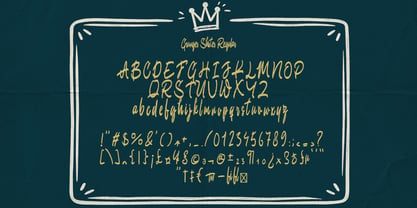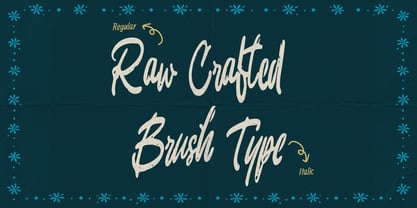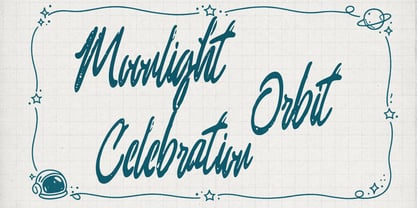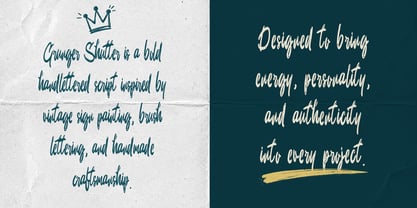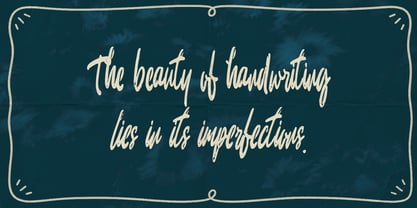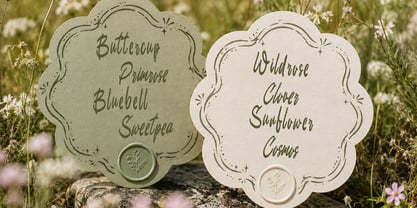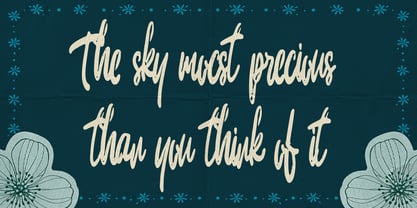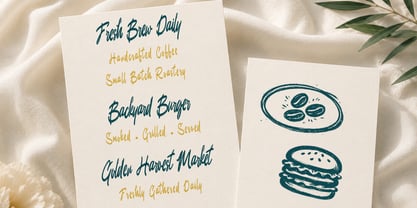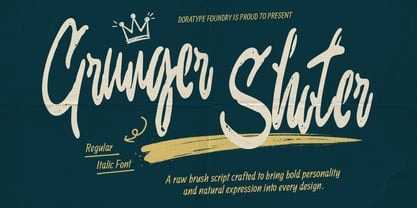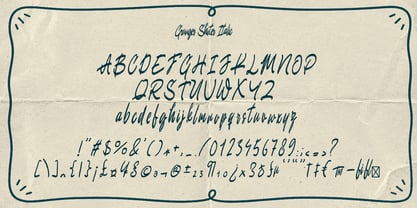
Grunger Shoter
by Dora Typefoundry
The Grunger Shoter Font Family was designed by Zahratul Laila and published by Dora Typefoundry. Grunger Shoter contains 2 styles and family package options. More about this family
Grunger Sluter is a handwritten-style brush script font that delivers a bold, expressive, and authentic character. Crafted with dynamic brushstrokes, each letter features natural textures and organic shapes, creating an impression that is both casual and confident. Available in Regular and Italic styles, the font offers versatility for design projects requiring an artistic touch with a modern, bold edge.
Designed to command attention, Grunger Sluter is ideal for branding, logos, product packaging, posters, merchandise, social media content, and editorial design. The blend of energetic strokes and fluid lettering creates a distinctive visual style, making every design feel more vibrant, premium, and memorable.